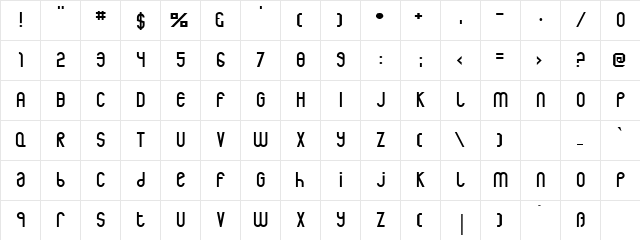
Rothwell Regular
Design Context for Rothwell Typeface
Rothwell takes a measured approach to typography — its balanced proportions and neutral character make it a reliable workhorse for both digital and print work.